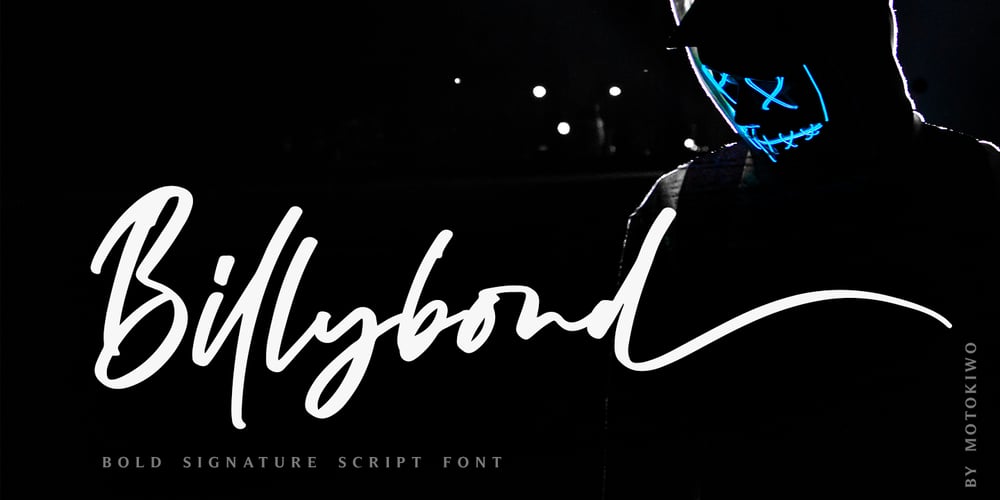
Billybond Font Family was designed by Anton Cahyono and published by Motokiwo. Billybond contains 1 styles and family package options. Billybond is a bold signature font with stunning ligatures and ending alternates. Billybond is suitable for your project that need classy and elegant feels. It’s packed with 15 cool ligatures and ending tails alternates for all lowercase, also support standard multilingual characters and already PUA Encoded. FEATURES: – Uppercase – Lowercase – Numeral & Punctuation – Multilingual Support – Ligature – Stylistic Alternates – PUA Encoded Enjoy the font and thank you!